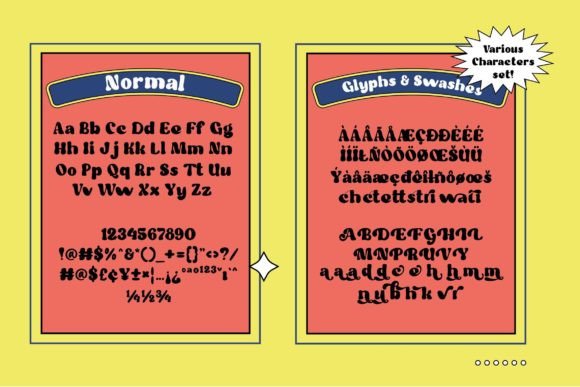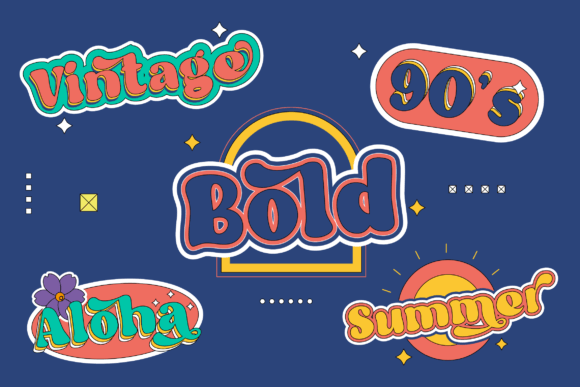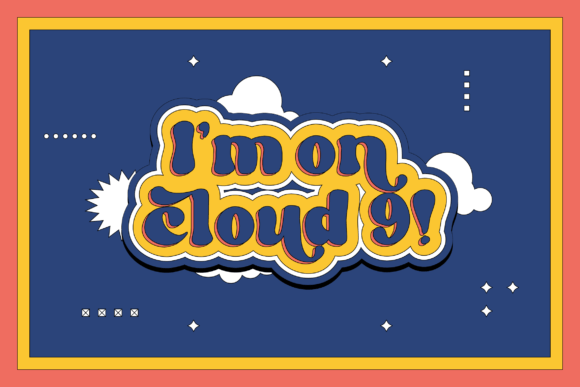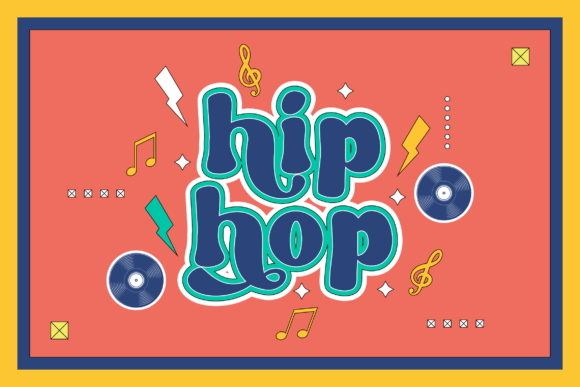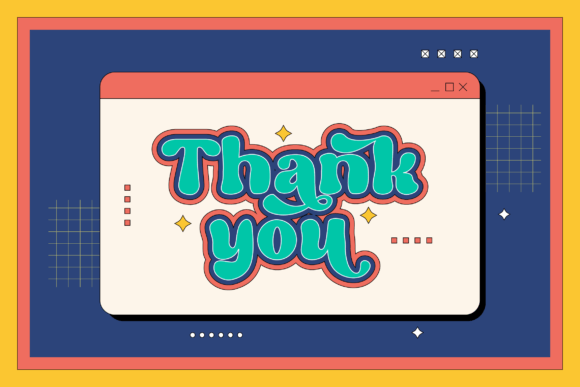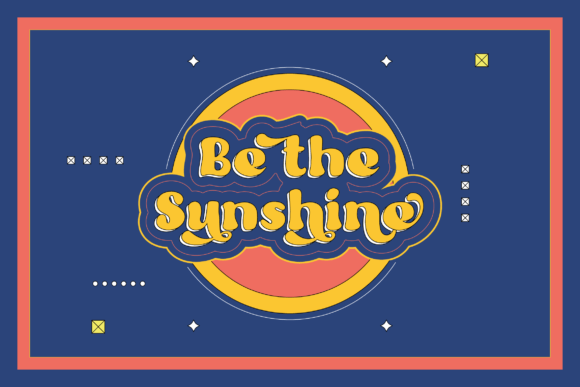
The Groovy Font: A Timeless Vintage Modern Choice for Designers
Ah, the elusive perfect font. You know, that one design element that can make or break a project. I recall working on a retro-themed branding campaign for a trendy new cafe, and I was on a mission to find the ideal font that would transport their customers back to the groovy ’60s and ’70s while still feeling fresh and modern. After hours of scouring font libraries and testing out various options, I stumbled upon Groovy – A Vintage Modern Font. It was love at first sight! 💫
What Makes Groovy Special?
Groovy is more than just a font – it’s a design statement. With its unique blend of vintage charm and modern flair, it’s perfect for designers, crafters, and creative hobbyists looking to add a touch of nostalgia to their work. Whether you’re designing for web pages, social media, apps, ads, printed materials, clothing, packaging, or anything else, Groovy is sure to make your brand stand out from the crowd.
An Honest Review of Groovy
- Unique and eye-catching design that instantly adds a vintage touch to any project ✅
- Highly versatile and adaptable to various design contexts 🌈
- Excellent for display text, headlines, and titles, where you want to make a statement 📣
- Supports OpenType features, glyphs, and stylistic alternates for added creative control 🎨
- May not be the best choice for body text or long-form content, as it’s primarily designed for display purposes ⚠️
- Some users may find the font a bit too bold or attention-seeking for certain design applications 🤷♀️
The Backstory Behind Groovy
Groovy was inspired by the iconic designs of the 1960s and 1970s, with a dash of modern flair. The font’s creator, a talented designer with a passion for retro aesthetics, set out to craft a font that would capture the essence of the era while still feeling fresh and contemporary. The result is a font that’s equal parts vintage and modern – perfect for designers looking to add a touch of nostalgia to their work.
Q: What type of projects is Groovy best suited for?
A: Groovy is perfect for display text, headlines, and titles, where you want to make a statement. It’s ideal for projects that require a vintage or retro touch, such as branding campaigns, posters, flyers, and social media graphics.
Q: Can I use Groovy for body text or long-form content?
A: While Groovy is a beautiful font, it’s primarily designed for display purposes. It’s not recommended for body text or long-form content, as it may be too bold or attention-seeking for these applications.
Q: Does Groovy support OpenType features and glyphs?
A: Yes, Groovy supports OpenType features, glyphs, and stylistic alternates, giving you added creative control over your design.